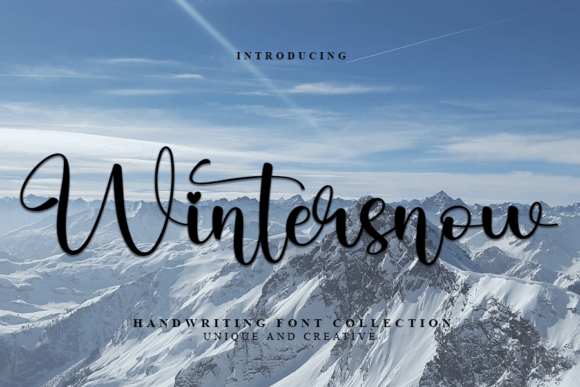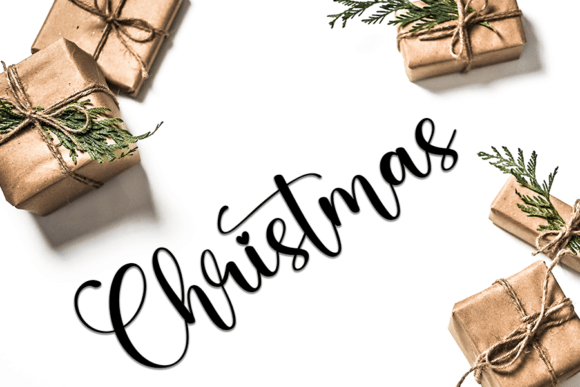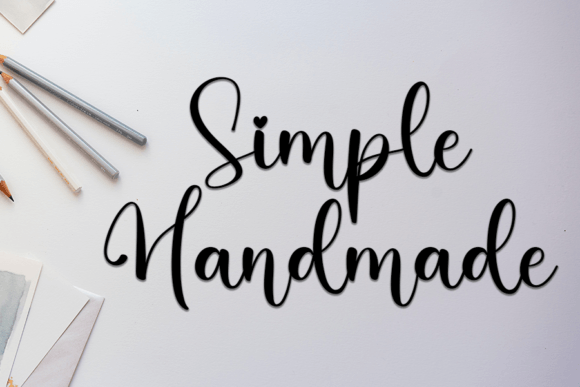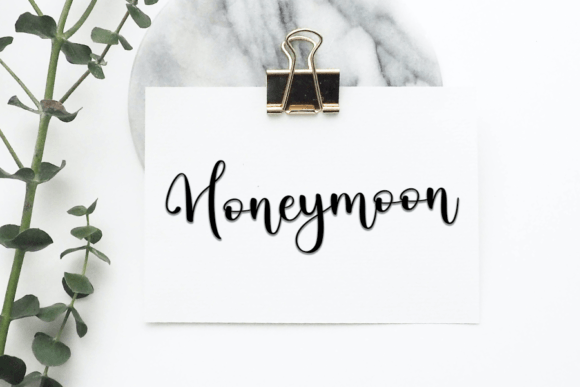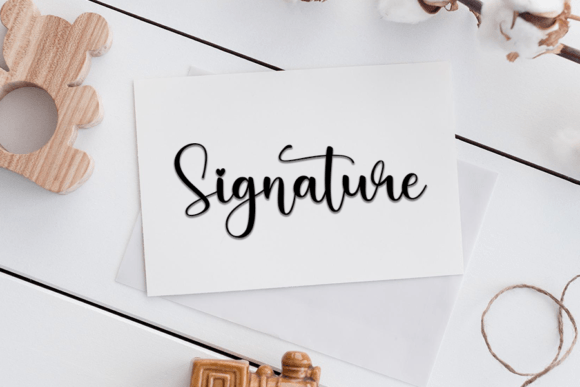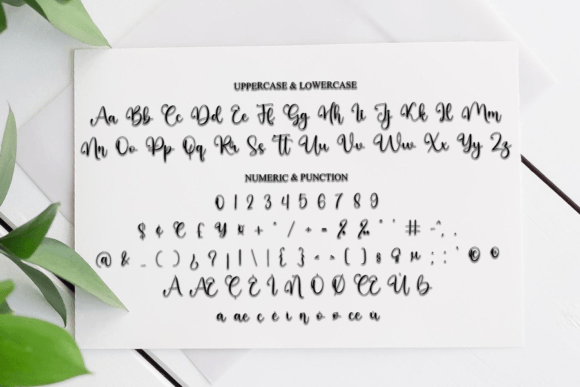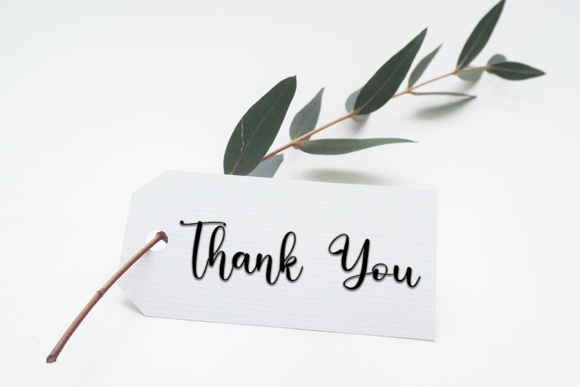
Wintersnow Font
Add a delicate and unique touch with the Wintersnow font. This handwritten script is carefully designed to bring a cool and refreshing style to your creative projects. It works wonderfully for writing letters, invitations, food product packaging, titles, and much more.
The Wintersnow font is highly versatile, making it perfect for many design applications. Whether you are creating branding materials, social media posts, packaging, or decorative pieces, this font adds elegance and personality to your work.
Each character features gentle, flowing strokes that create a polished yet approachable look. The font balances artistic flair with readability, making it suitable for headlines, logos, quotes, and decorative text.
Despite its delicate appearance, the Wintersnow font maintains excellent readability at various sizes. Whether used for bold titles or subtle details, it adapts beautifully. Its flexibility makes it an excellent choice for a variety of creative projects.
Using this font will help your designs stand out with a unique and cool vibe. If you want your work to look elegant and memorable, the Wintersnow font is an excellent option.
In summary, the Wintersnow font fits many creative needs. From letters and invitations to product packaging and titles, it brings charm and sophistication. Download it today and create stunning, delicate designs with a unique handwritten script.